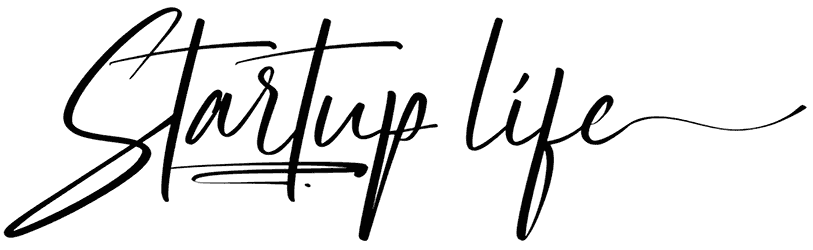
Startup Life Font
Startup Life is the perfect font for that natural feel you’re striving for. It’s a great choice if you’re not happy with how complex the things you make are.
This autograph font can be utilized in a variety of contexts, including branding, card design, flyers, and those that call for a script or handwritten elements, while lacking numerical characters. You may give your work a fresh look using this script font.